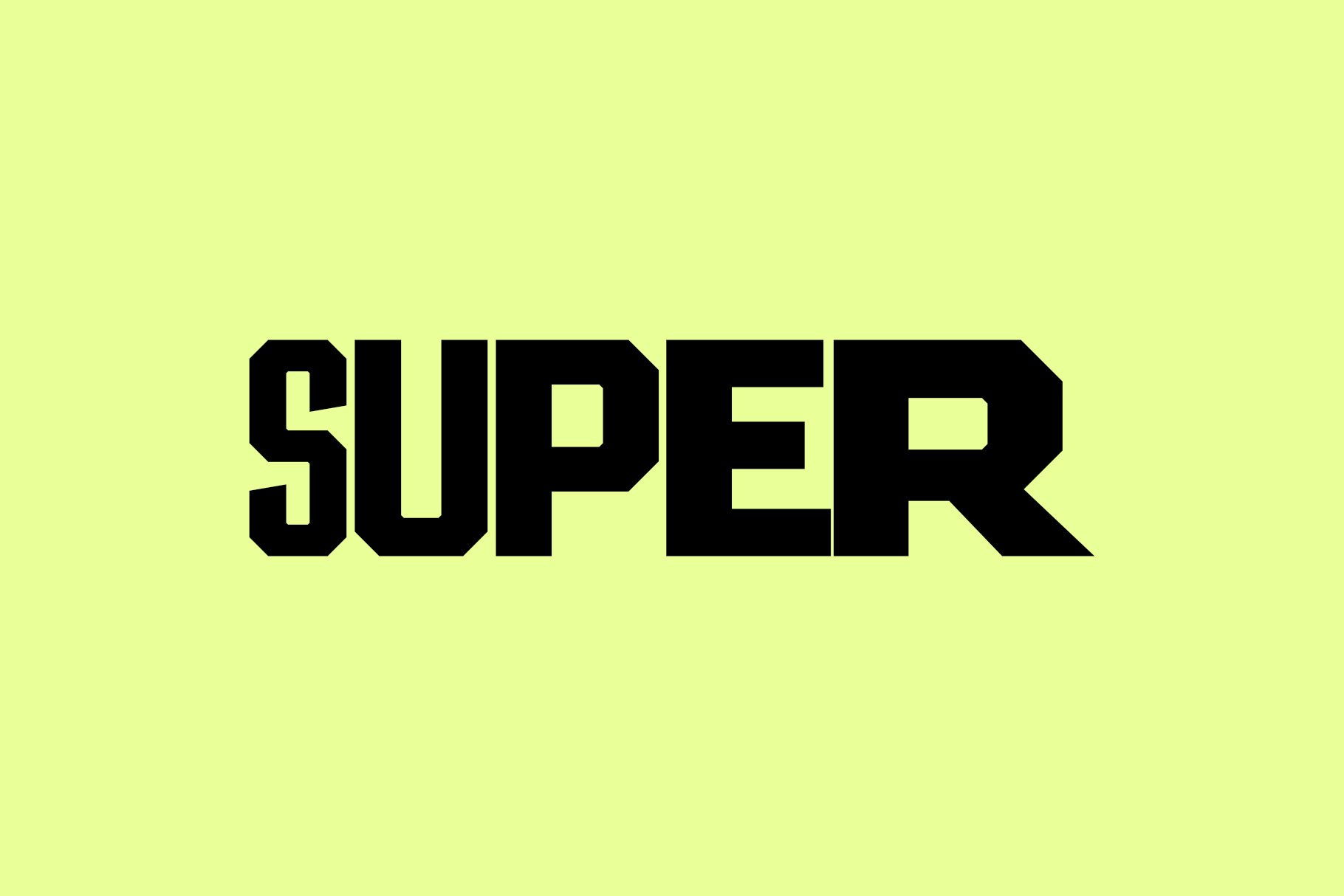
SF Super Modern Vintage Sport Font
SF Super is a powerful and versatile sans serif font family built for bold logos, strong branding, and standout design. With 50 styles to choose from, it’s made to flex across everything—from modern sportswear branding to cutting-edge tech projects. Clean and geometric, with a punch of retro athletic energy, SF Super is your go-to for high-performance visual identity.
This font family blends modern innovation with vintage grit, combining sharp, technical lines with subtle grunge and stamp-style vibes. Whether you're designing for fashion, engineering, or a futuristic logo tech startup, SF Super delivers a bold, luxurious, and confidently elegant look.
Perfect for creative brands who want to stand out, SF Super gives you the tools to build a strong, cohesive brand voice—with a modern-meets-retro style that works in both digital and print. It's clean. It's tough. It's SF Super.